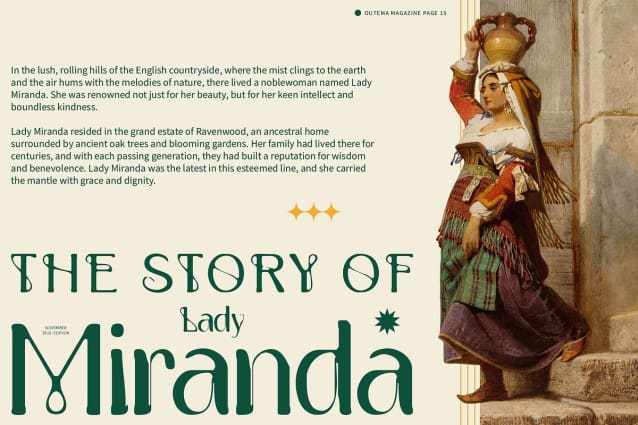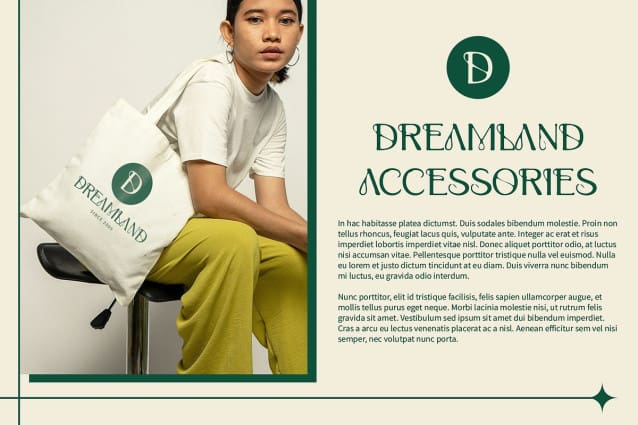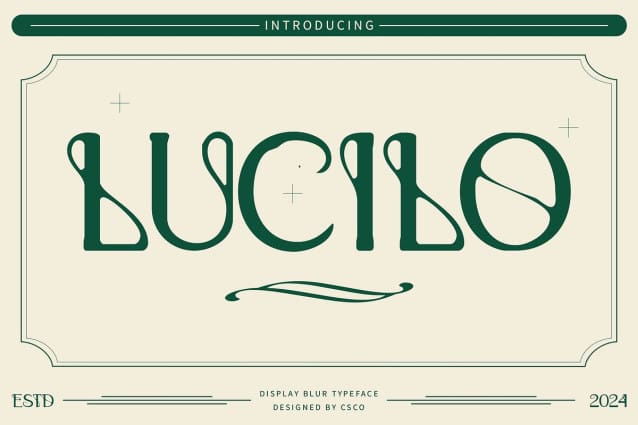
Lucilo Blur Font
Lucilo Blur Font is a modern serif font that seamlessly blends timeless classic beauty with the enchanting influence of Art Nouveau. Drawing inspiration from the iconic Art Nouveau movement, this font features intricate details and delicate lines that capture the essence of sophisticated design. Its unique shape and elegant curves make it stand out in a variety of design contexts, adding a touch of historical charm with a modern twist.
Sophistication and Grace With its refined and graceful aesthetic, Lucilo Blur exudes a sense of sophistication that enhances any project. The font’s elaborate details and fluid lines contribute to its distinguished look, making it perfect for designs that seek to convey elegance and style. Whether used in a formal invitation or a high-end editorial layout, the font’s intricate beauty brings a refined and polished appearance to the forefront.
Ideal for Luxurious Designs Lucilo Blur shines in applications that demand a luxurious touch. It is particularly well-suited for high-end wedding invitations, prestigious brand logos, and elegant editorial layouts. Its ability to combine classic beauty with contemporary flair ensures that it will make a striking impression on any audience, elevating the design to a level of sophistication and charm.